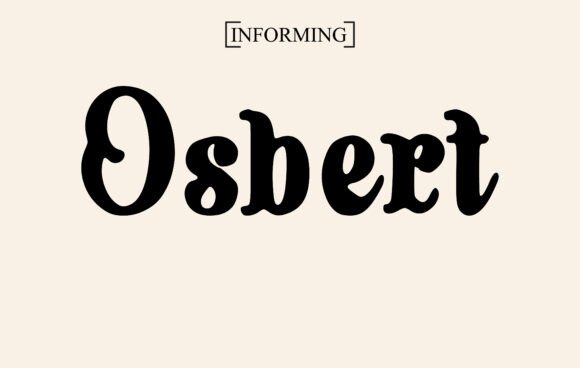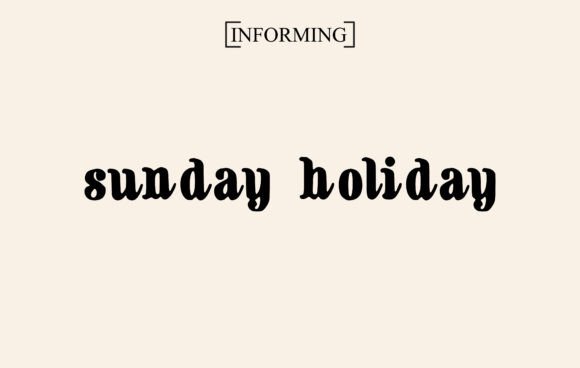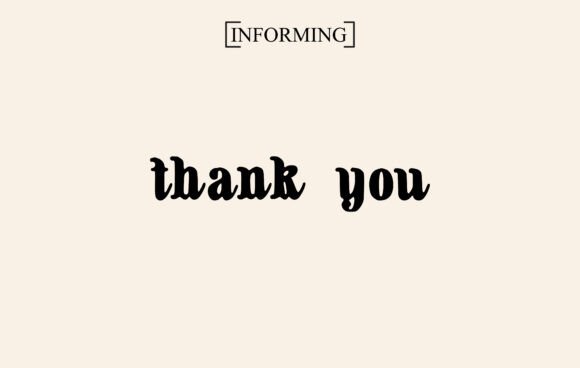
Osbert Font
About the Osbert Font
Introducing the Osbert Font, a beautifully crafted typeface designed to elevate your creative projects. This font is designed to be a true favorite and it has the potential to take your creative ideas to the highest level
Osbert’s strong, confident strokes make it ideal for headlines, logos, and short-form text in branding projects. It excels in applications requiring a bold visual statement, such as posters or packaging for premium products. However, its weight and slightly condensed letterforms make it less suitable for extended body text or UI elements where high readability over long passages is critical.
The font possesses a modern yet classic personality, conveying a sense of sophistication and authority. Consider pairing it with a clean sans-serif like Lato for a balanced contrast, or a delicate script font like Great Vibes for a touch of elegance in invitations or branding for more feminine products. A geometric sans-serif could also add a contemporary edge.
Avoid using Osbert for situations requiring maximum legibility at small sizes or in complex layouts. Its bold character is best showcased in prominent applications where impact is paramount.
Osbert Font Usage Examples
Osbert Font Example